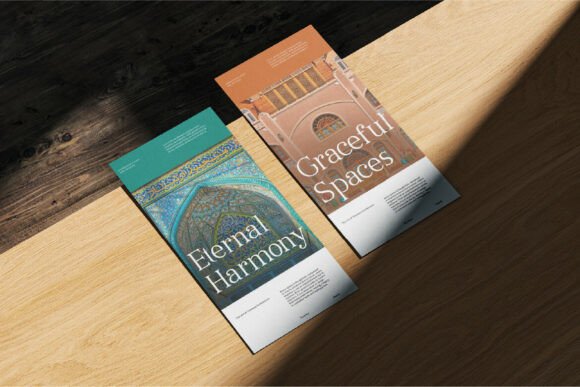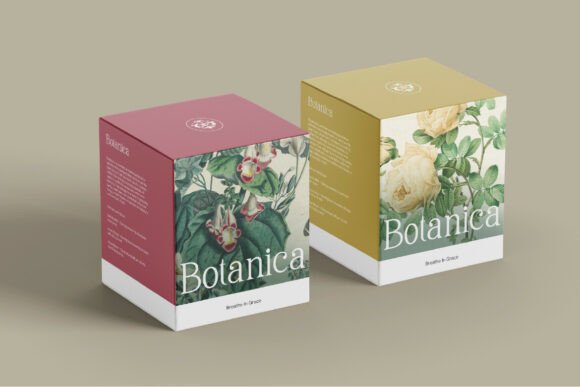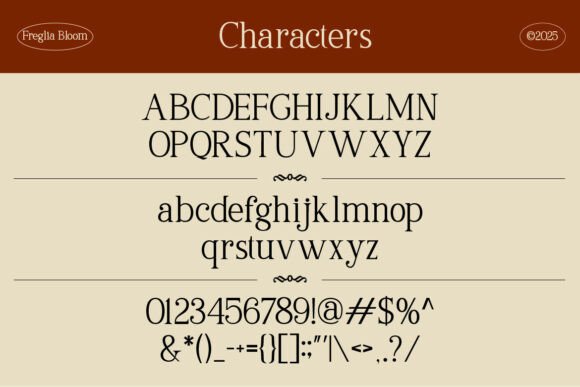
Introduction to Freglia Bloom Font Font
Fonts play a crucial role in design, and the Freglia Bloom Font font is a typeface that brings both character and versatility to any project. Whether you’re working on a branding project, a website, or a print design, the Freglia Bloom Font font offers a unique style that can elevate your work.
Freglia Bloom is a vintage-inspired serif font that captures the charm of classic interiors and handcrafted elegance.
With refined curves and ornamental details, itβs ideal for packaging, botanical branding, antique labels, and editorial spreads The font evokes a timeless aesthetic rooted in artisanal tradition, making it a perfect fit for home decor products, elegant stationery, and boutique branding.
Key Features of Freglia Bloom Font Font
Why Choose Freglia Bloom Font Font?
The Freglia Bloom Font font is more than just a typeface β it’s a design tool that helps you communicate your message with style and clarity. Its unique character set and versatile design make it suitable for a wide range of applications, from elegant invitations to bold headlines.
With its carefully crafted letterforms and balanced proportions, the Freglia Bloom Font font ensures readability and visual appeal across all mediums.
What makes Freglia Bloom Font font special?
The Freglia Bloom Font font stands out with its unique design, exceptional readability, and versatility across various design applications.